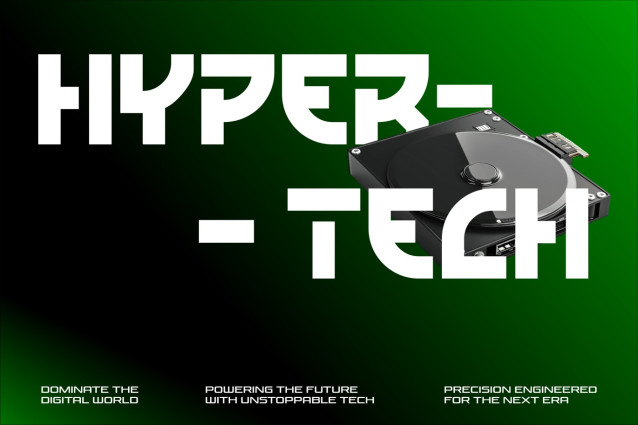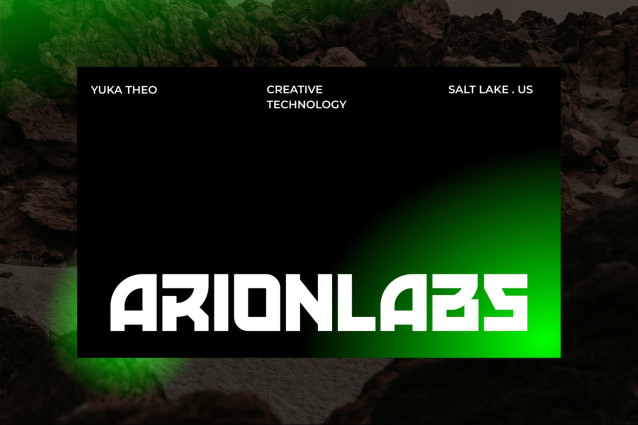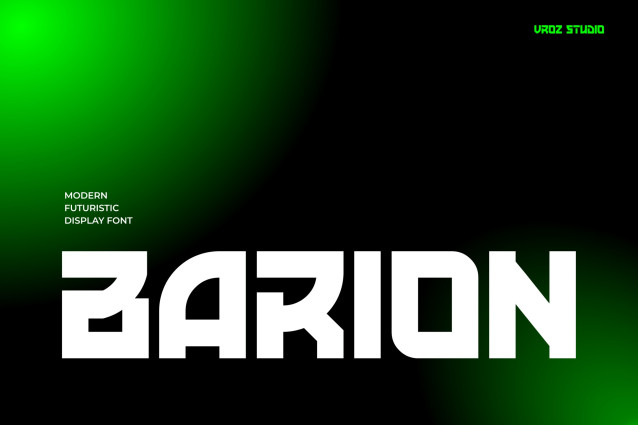
Barion Font
Barion Font is a cutting-edge, modern display typeface designed with a bold, futuristic vision. Constructed from precise geometric shapes and crisp digital curves, BARION offers a striking visual presence that appears both advanced and highly refined. Each letter is designed to reflect strength, clarity, and a forward-looking identity.
Designed for creators who want to stand out, BARION captures the essence of tomorrow’s design language: minimalist, powerful, and resolutely modern. Its distinctive structure makes it highly versatile while maintaining a unique character that instantly elevates any composition
Perfectly suited for technology brands, esports visuals, science fiction movie titles, UI/UX concepts, posters, digital campaigns and animated graphics, BARION delivers a high-impact aesthetic that grabs attention without sacrificing readability.
Whether it’s creating a futuristic brand, designing a next-generation interface, or creating bold promotional visuals, BARION gives your work a stylish, professional, and innovative edge.